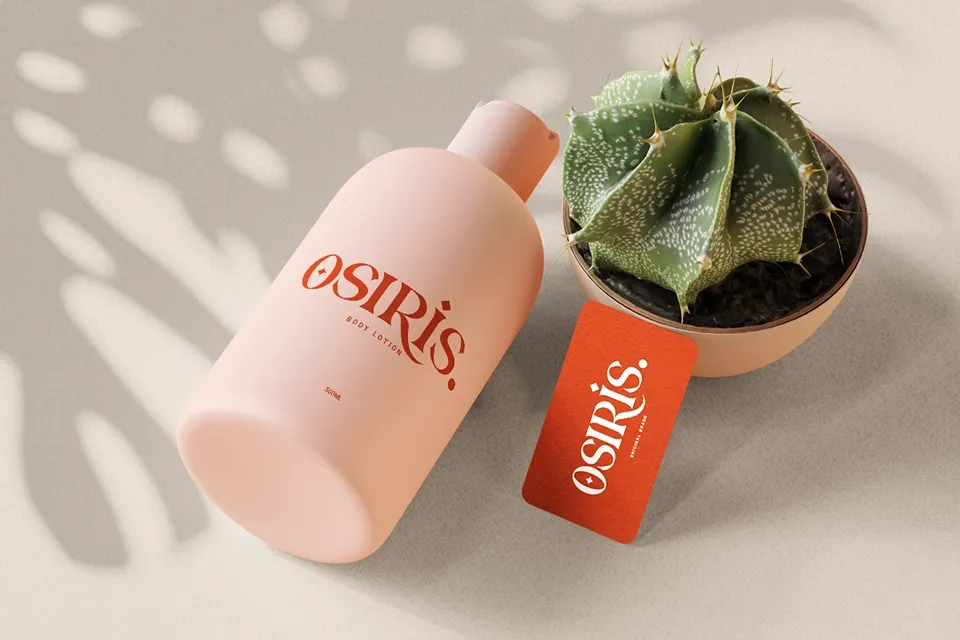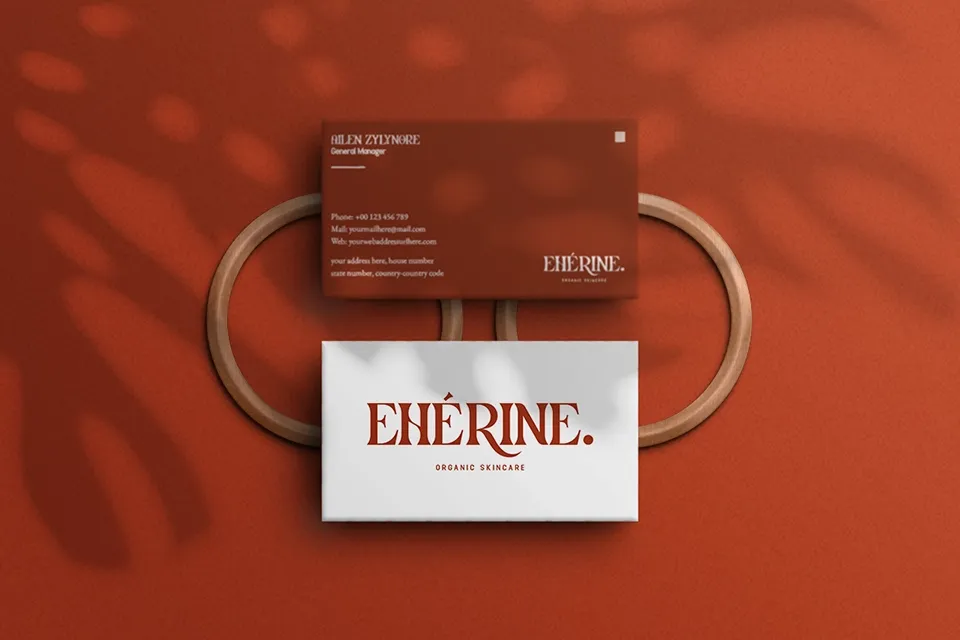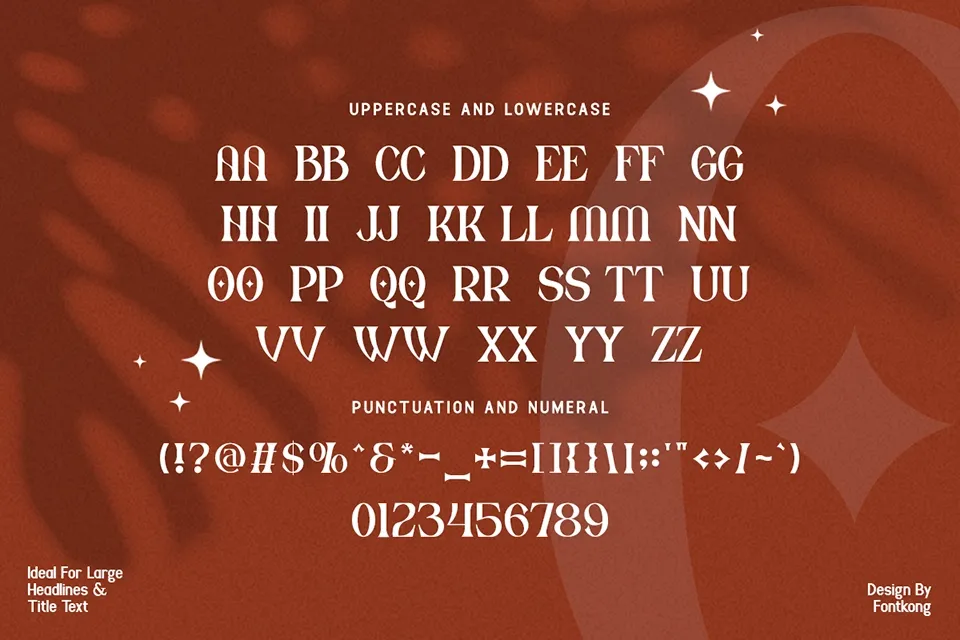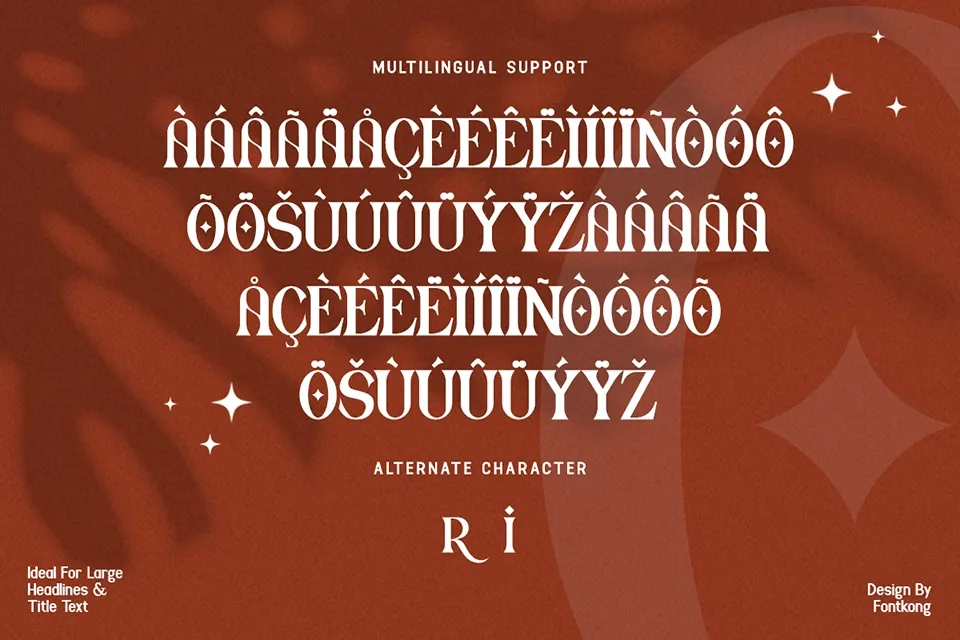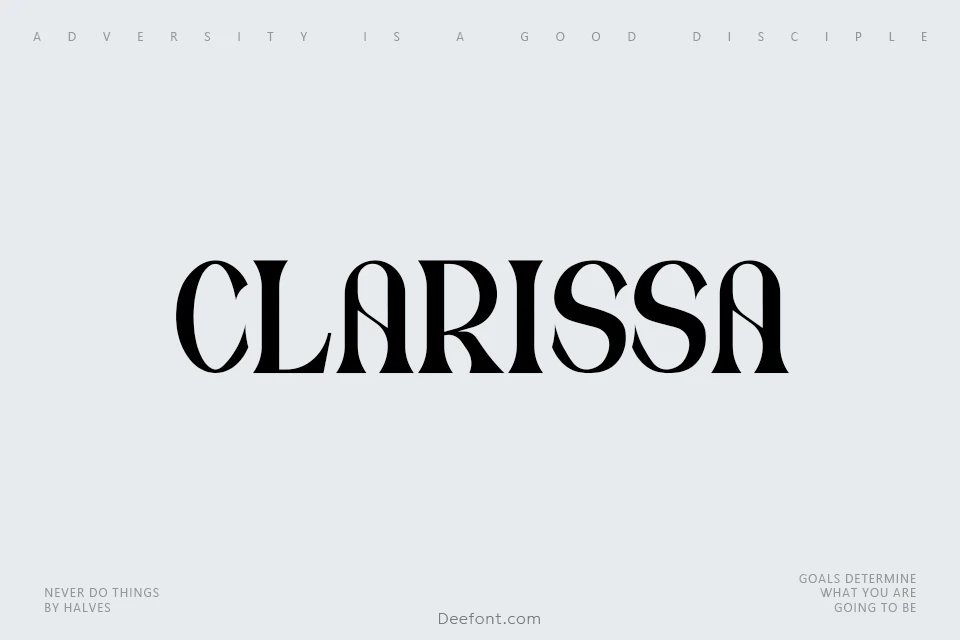
Clarissa Serif Font
Clarissa Font is a modern serif typeface that blends elegance with contemporary style, making it perfect for large headlines and title text. Its refined letterforms feature unique curves and stylish details, giving any design a sophisticated and memorable look. Clarissa stands out with its bold presence and artistic flair, ideal for branding, editorial layouts, invitations, and luxury packaging. The font’s versatility allows it to suit a wide range of creative needs, from fashion to lifestyle projects. With its graceful appearance and strong visual impact, Clarissa Font ensures your message is delivered with both charm and confidence.